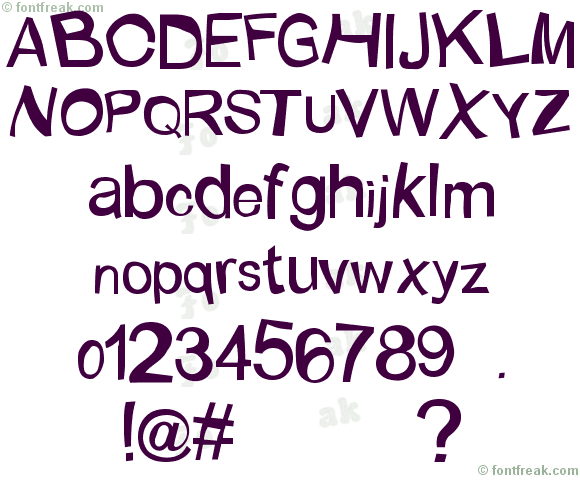
Bunaken Underwater Normal
Bunaken Underwater Normal is a distinctive display font created by Adien Gunarta, characterized by its playful and organic design inspired by the underwater world of Bunaken. This font falls into the category of decorative typefaces, making it ideal for projects that require a unique and eye-catching visual style. The strokes exhibit a varied weight, creating a sense of movement and fluidity reminiscent of ocean waves. The spacing between letters is thoughtfully designed to enhance legibility while maintaining a relaxed, informal feel, perfect for capturing attention without overwhelming the viewer.
This font is particularly well-suited for a variety of creative applications. It shines in wedding invitations, where its charming aesthetic can evoke a sense of joy and celebration. Additionally, it can be effectively utilized in movie posters, especially for films related to nature or aquatic themes, where its whimsical nature can draw in audiences. Restaurant menus, particularly those featuring seafood or tropical cuisine, can also benefit from the inviting look of Bunaken Underwater Normal, adding a touch of personality to the dining experience. Furthermore, content creators looking to engage their audience through social media graphics will find this font an excellent choice for promotional materials and posts.
Target audiences for this font include graphic designers seeking to add a unique flair to their projects, small business owners wanting to elevate their branding, and content creators aiming for a fresh and engaging visual approach. In a crowded digital landscape, the Bunaken Underwater Normal font free download stands out for its ability to combine playfulness and elegance, making it a versatile choice for anyone looking to make a memorable impact with their typography. Its unique charm and creative potential make it a valuable addition to any designer's toolkit.